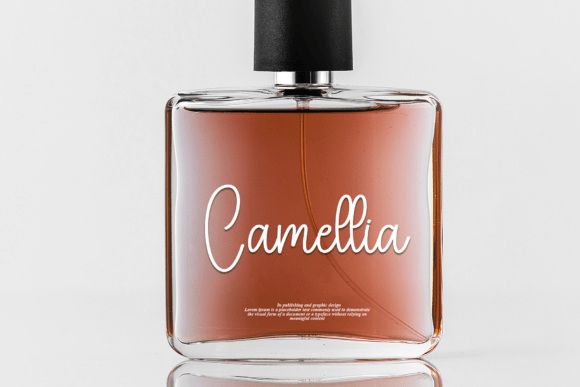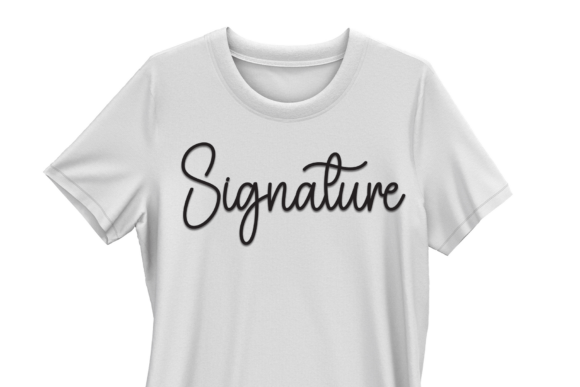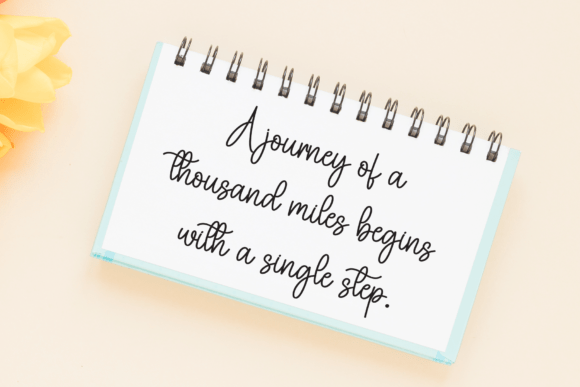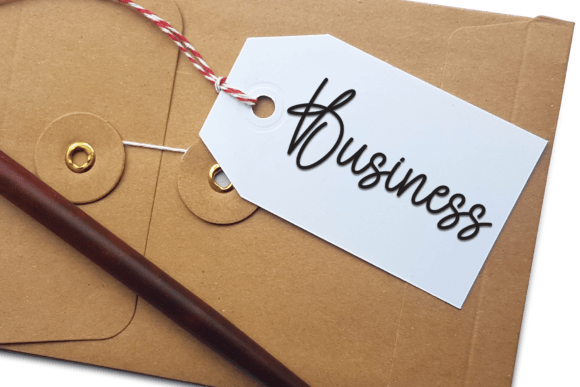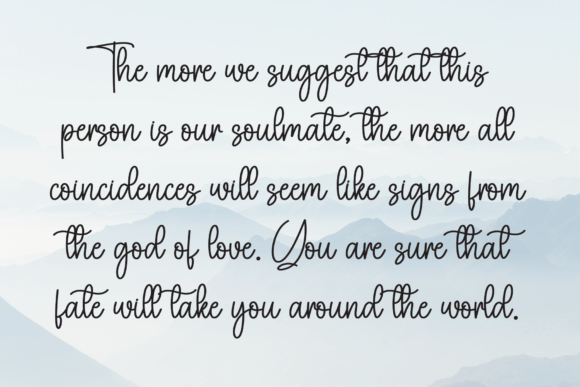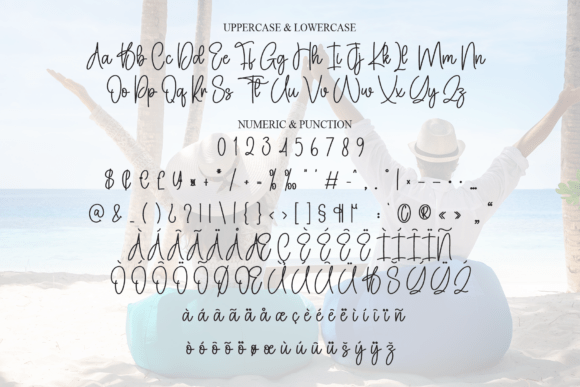
Discover the Perfect Script for Your Summer Vibes
Have you ever been scrolling through your social media feeds and stumbled upon a beautifully designed invitation that instantly makes you feel like you’re on a tropical getaway? For me, it was a beach-themed wedding invitation that sparked a creative itch – I knew right then that I needed to find the perfect font to capture that effortless, sun-kissed charm.
Enter Beach Holiday Font, a stylish handwritten script font that exudes fresh elegance and delicate charm. This lovely typeface is perfect for invitations, branding, and seasonal designs, adding a soft, personal touch and uplifting feel to any project. As a designer, you know how valuable it is to have a reliable font that can evoke emotions and set the tone for your creative vision. With Beach Holiday Font, you’ll have the perfect tool to transport your audience to a sunny state of mind.
Key Features of “Beach Holiday Font”
- Font Family: A unique, cursive font designed to evoke the feeling of a beach holiday.
- Character Count: A total of 500 characters, including uppercase and lowercase letters, numbers, and punctuation marks.
- Unique Characteristics: Includes swashes, ligatures, and alternate characters, adding a touch of elegance and sophistication to your designs.
Beach Holiday Font Review
Overall, I think the Beach Holiday Font is a great addition to any designer’s toolkit. It’s perfect for creating that summer vibe and works beautifully for beach-themed designs, travel websites, and even food labels. ✨
Here are some of the things I like about it:
- Unique and playful letterforms that evoke a sense of relaxation and leisure.
- Highly customizable, making it easy to adjust the font to suit your design needs.
- Excellent legibility, even at smaller font sizes.
- Some characters may not be as refined as others, which can make the font feel a bit uneven at times ⚠️.
- The font may not be as versatile as some other fonts, and may not be suitable for more formal or professional designs.
- There may be some compatibility issues with certain operating systems or software.
Overall, I would give the Beach Holiday Font 4 out of 5 stars. It’s a fun and playful font that’s perfect for creating a lighthearted and carefree atmosphere. With a little tweaking and customization, it can be a great addition to any designer’s collection.
Tips for Getting the Most Out of the Beach Holiday Font
To get the most out of the Beach Holiday Font, use it for beach-themed projects such as travel brochures, restaurant menus, and beach wedding invitations. The font’s playful and casual style makes it perfect for creating a relaxed, summery vibe. Experiment with different font sizes and colors to create a unique and eye-catching design.
The Beach Holiday Font is commonly used for:
Beach-themed projects such as travel brochures and restaurant menus
Summer-themed events such as beach weddings and pool parties
Travel and tourism-related projects such as hotel brochures and airline menus
Alternatives to Beach Holiday Font for Designers
The Beach Holiday Font is a popular choice for designers due to its casual, beachy feel. However, there are several alternatives that can achieve a similar look while offering unique characteristics.
Great Vibes Font is a handwritten font that exudes a carefree, summery feel. It’s perfect for designing beach-themed posters, invitations, and social media graphics. Compared to Beach Holiday Font, Great Vibes Font has a more relaxed, handwritten feel that’s ideal for creating a laid-back atmosphere.